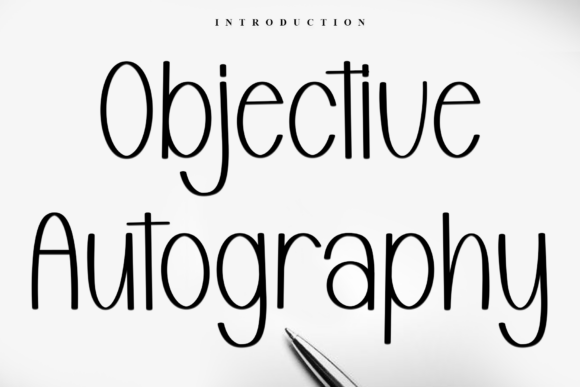
Objective Autography Font: A Festive and Merry Typeface for the Holiday Season
The holiday season is upon us, and with it comes the need for festive and merry designs that capture the spirit of the season. One of the most important elements of any design is the font, and that’s where Objective Autography Font comes in. This decorative typeface is perfect for adding a touch of enchantment to your holiday-themed projects, from greeting cards to gift tags and everything in between.
What Makes Objective Autography Font So Special?
Objective Autography Font is a unique and whimsical typeface that is sure to bring a cheerful and nostalgic ambiance to your words. With its decorative elements and festive flair, it’s the perfect choice for anyone looking to add a touch of magic to their designs. Whether you’re creating holiday-themed projects for personal use or for clients, this font is sure to impress.
One of the standout features of Objective Autography Font is its PUA encoding. This means that you can access all of the amazing glyphs and ligatures with ease, making it simple to create beautiful and intricate designs. The font is also highly versatile, making it perfect for a wide range of applications, from greeting cards and gift tags to holiday-themed posters and social media graphics.
How to Use Objective Autography Font in Your Designs
Objective Autography Font is perfect for a wide range of holiday-themed design projects. Here are just a few ideas to get you started:
- Greeting Cards: Add a touch of festive flair to your holiday greeting cards with Objective Autography Font. Whether you’re creating physical cards or digital versions, this font is sure to impress.
- Gift Tags: Make your gift tags stand out with Objective Autography Font. This font is perfect for adding a personal touch to your gifts, and can be used to create beautiful and intricate designs.
- Holiday-Themed Posters: Create eye-catching holiday-themed posters with Objective Autography Font. This font is perfect for adding a touch of festive flair to your designs, and can be used to create a wide range of poster types, from Christmas to Hanukkah and more.
- Social Media Graphics: Add a touch of holiday cheer to your social media graphics with Objective Autography Font. This font is perfect for creating festive and engaging graphics that are sure to stand out on social media.
The Benefits of Using Objective Autography Font
There are many benefits to using Objective Autography Font in your holiday-themed designs. Here are just a few:
- Festive and Merry: Objective Autography Font is a festive and merry typeface that captures the spirit of the holiday season. With its decorative elements and whimsical flair, it’s the perfect choice for anyone looking to add a touch of enchantment to their designs.
- Highly Versatile: Objective Autography Font is highly versatile, making it perfect for a wide range of applications, from greeting cards and gift tags to holiday-themed posters and social media graphics.
- PUA Encoded: Objective Autography Font is PUA encoded, making it easy to access all of the amazing glyphs and ligatures. This means that you can create beautiful and intricate designs with ease.
- Easy to Use: Objective Autography Font is easy to use, even for those with limited design experience. With its simple and intuitive design, you can create beautiful holiday-themed designs in no time.
Tips for Getting the Most Out of Objective Autography Font
Here are a few tips for getting the most out of Objective Autography Font:
- Experiment with Different Sizes: Objective Autography Font looks great in a wide range of sizes, from small and delicate to large and bold. Experiment with different sizes to find the one that works best for your design.
- Combine with Other Fonts: Objective Autography Font pairs well with a wide range of other fonts. Try combining it with a simple sans-serif font for a bold and eye-catching design.
- Use the Glyphs and Ligatures: Objective Autography Font comes with a wide range of glyphs and ligatures. Don’t be afraid to experiment with these to add a touch of whimsy to your designs.
- Have Fun: The most important thing is to have fun with Objective Autography Font. Don’t be afraid to experiment and try new things – it’s the best way to get the most out of this amazing font.
Objective Autography Font Details
Here are the details of Objective Autography Font:
- Font Type: Decorative
- Encoding: PUA
- Glyphs and Ligatures: Includes a wide range of glyphs and ligatures
- Use: Perfect for holiday-themed designs, including greeting cards, gift tags, posters, and social media graphics